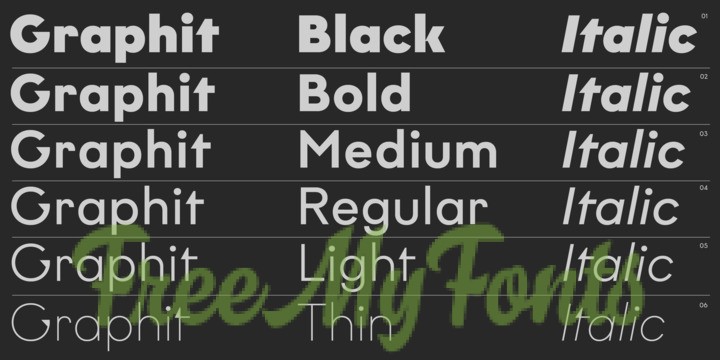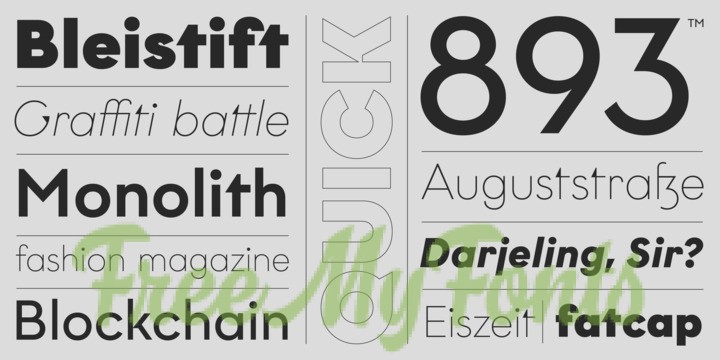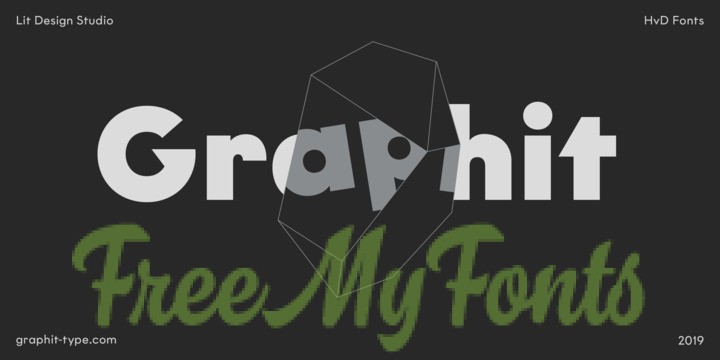
Graphit is a typeface designed by Lit Design Studio & curated by HvD Fonts. It combines clear, geometric shapes with edgy yet finely-crafted details. Graphit features uncompromising characters such as G, Q, f, k and 1. It works well both for impactful headlines and for reading sizes. The type family consists of six weights plus matching italics.
In early 2018, Livius Dietzel & Tom Hoßfeld started developing the typeface’s essential character and released a free font named after the studio, Lit. Just a few months later, Hannes von Döhren had a look at the typeface and suggested expanding it into a family – then publishing it with HvD Fonts. They drew every single letter from scratch, and also decided to give the font a new name — Graphit. More…
The family features six low-contrast weights, ranging from Black to Thin. Every character has been crafted to give it a distinctive and individual feel. Medium, Regular and Light are optimized for usage in copy text. For smaller font sizes & longer body copy, the alternate character set features a double-story a and a simplified Q, f, r and t for improved legibility. All fonts are manually hinted for optimal performance on digital devices.